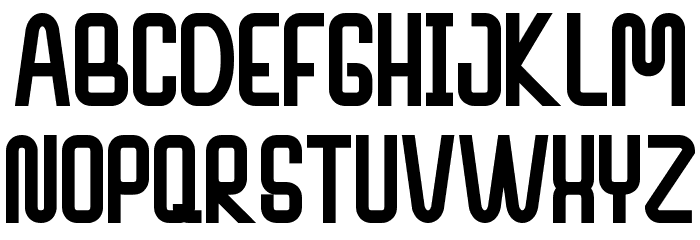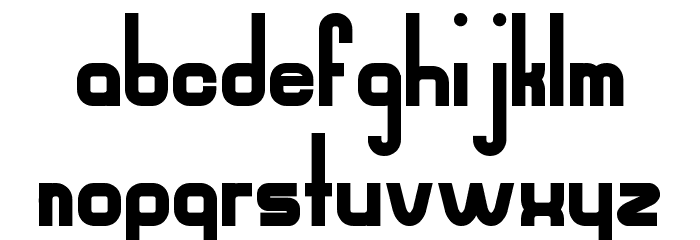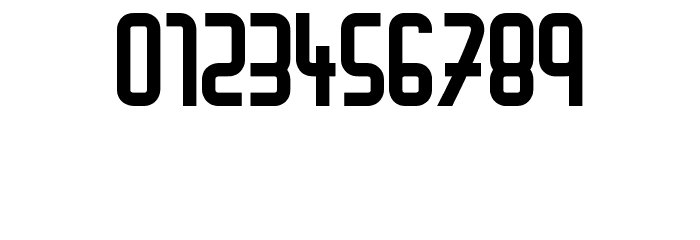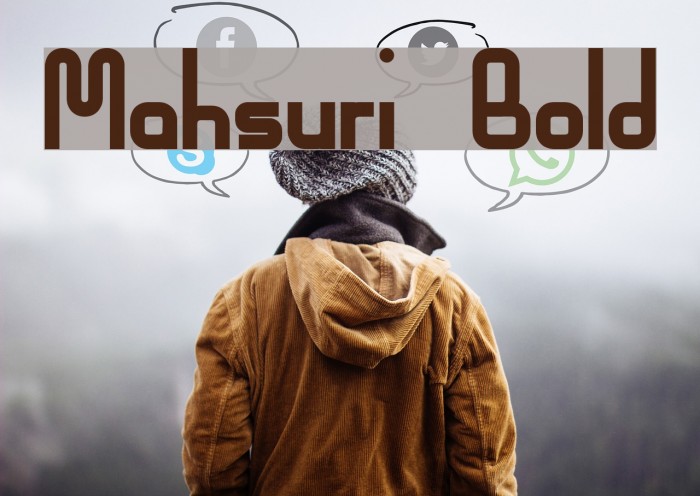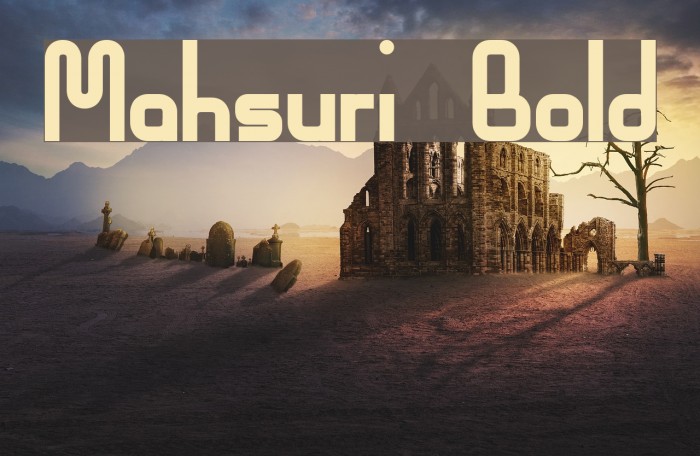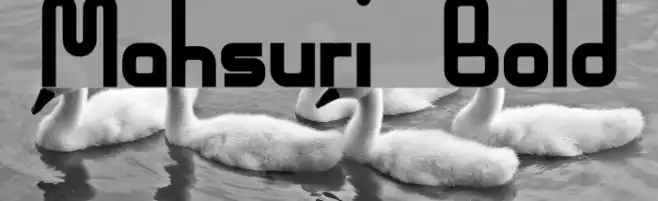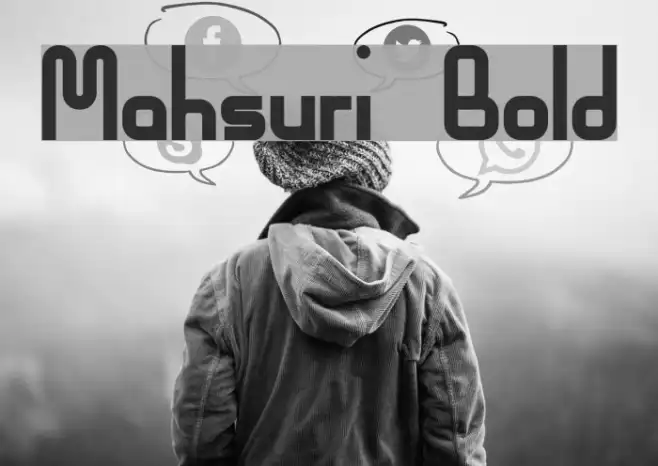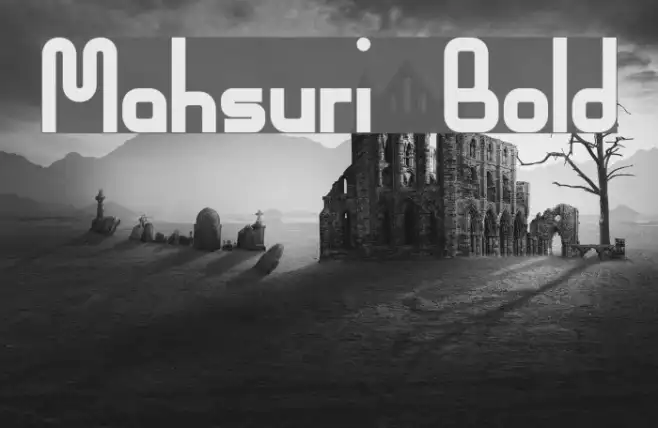
Mahsuri Bold Font
This font features a bold and modern design with a geometric structure. The characters are uniform in width, giving it a monospaced appearance, although it is not strictly monospaced. The uppercase letters have a distinctive rounded top, which adds a unique flair to the overall style. The lowercase letters maintain a consistent height, contributing to the font's clean and organized look. The numerals are clear and easy to read, matching the boldness of the alphabetic characters. This font is well-suited for projects that require a strong and contemporary aesthetic.
A bold, modern font with geometric and uniform characteristics.